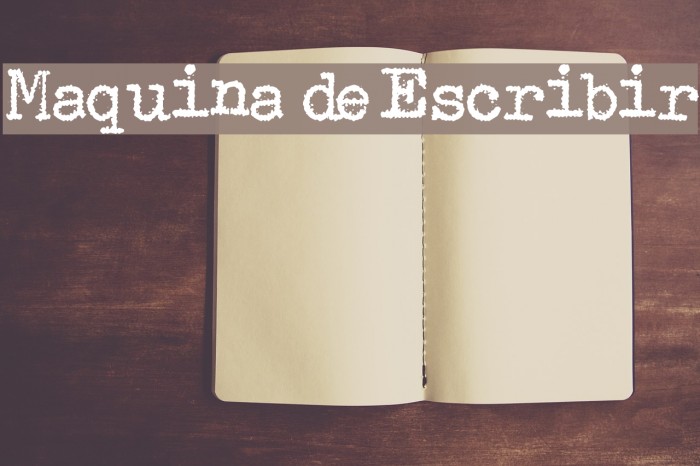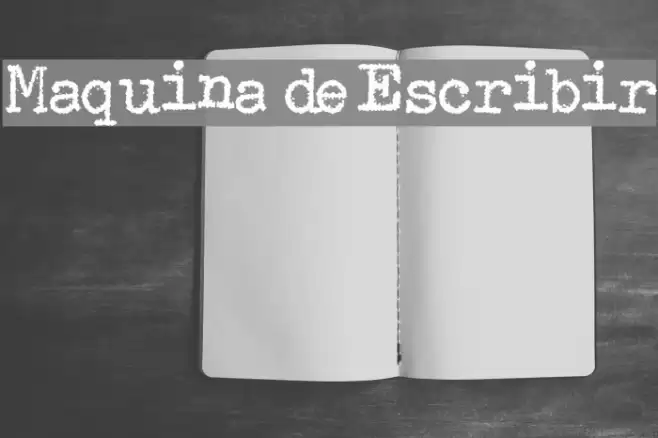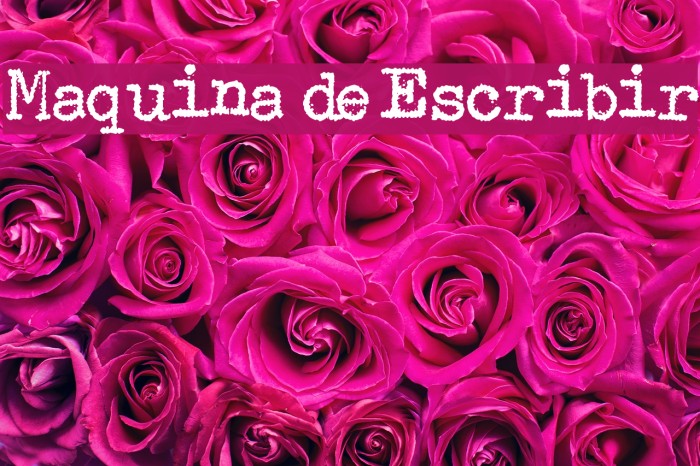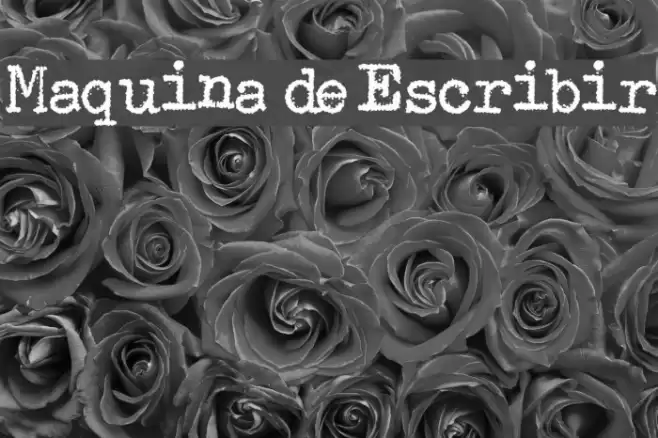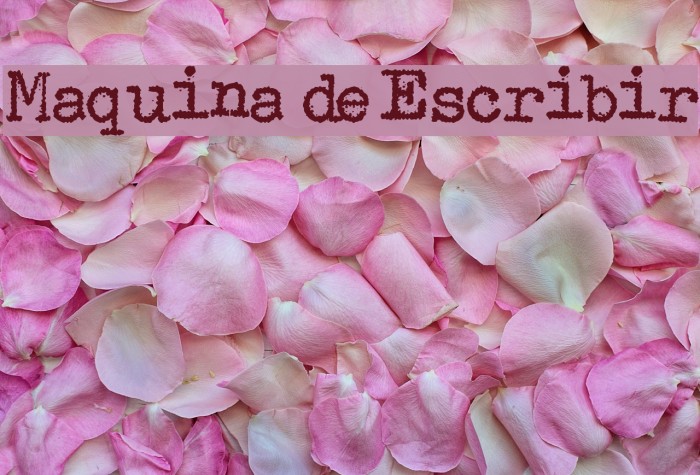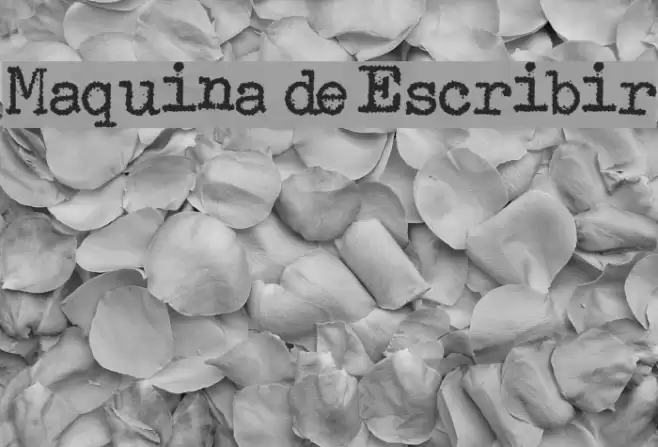
Maquina de Escribir Font
This font exudes a vintage typewriter aesthetic, characterized by its monospaced design and textured, slightly distressed appearance. Each character is uniformly spaced, reminiscent of classic typewritten text, with a rough, ink-splotched texture that adds an authentic, aged feel. The uppercase and lowercase letters maintain a consistent height and width, enhancing readability while preserving the nostalgic charm of traditional typewriters. The numerals and special characters follow the same stylistic cues, ensuring a cohesive look across all glyphs. This font is perfect for projects that aim to evoke a sense of nostalgia or historical authenticity.
A vintage, monospaced typewriter-style font with a textured, distressed look.
• Proposed Projects: Ideal for retro-themed designs, historical documents, creative writing projects, or any work requiring a nostalgic typewriter effect.
• Category: Monospaced
• Bold: No
• Italic: No
• Weight: Regular
• Width: Normal
• Character Spacing: Normal
• Contrast: Low
• Overall Style: Vintage
• Use Case: Headlines, Body text, Logos